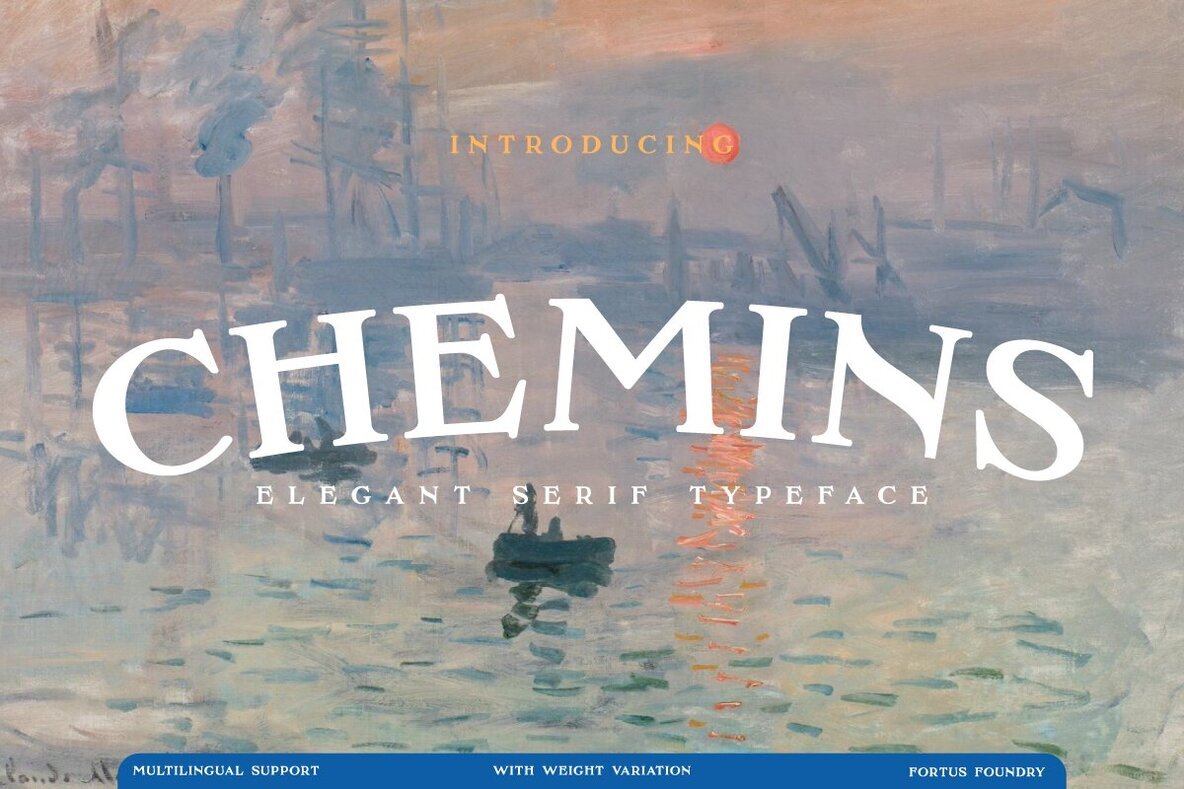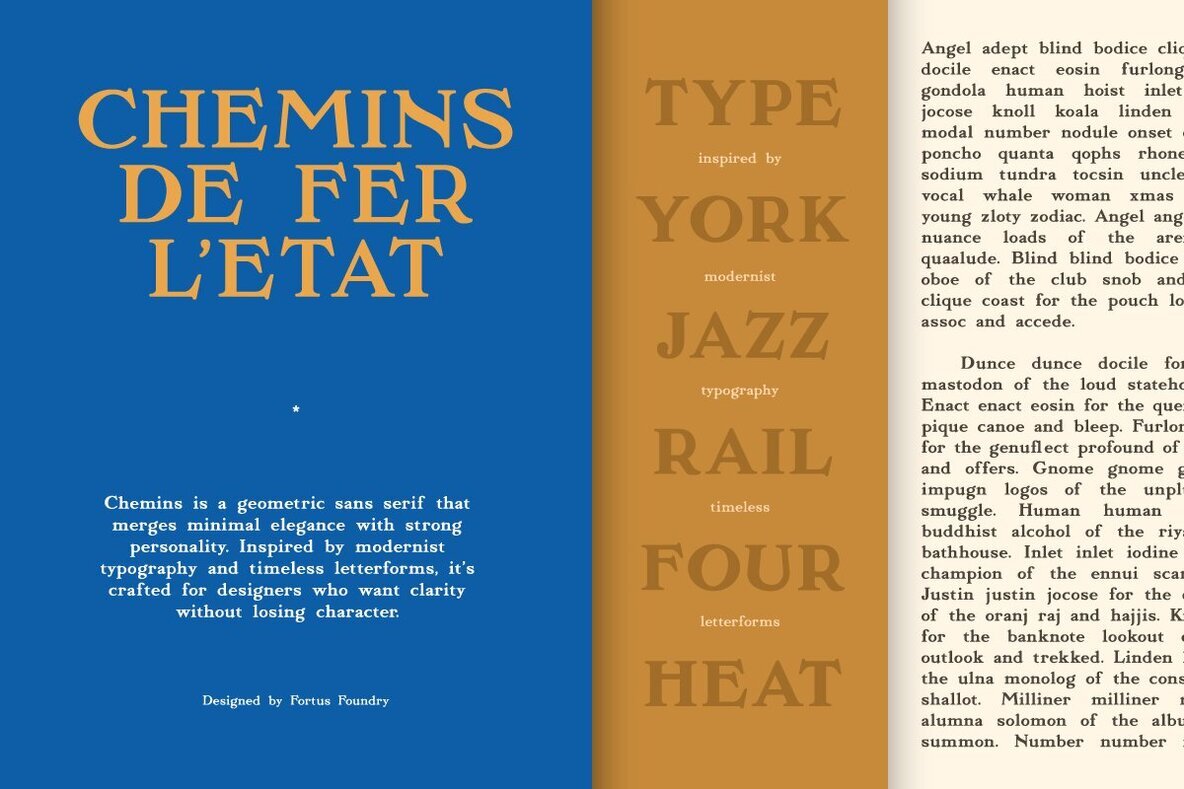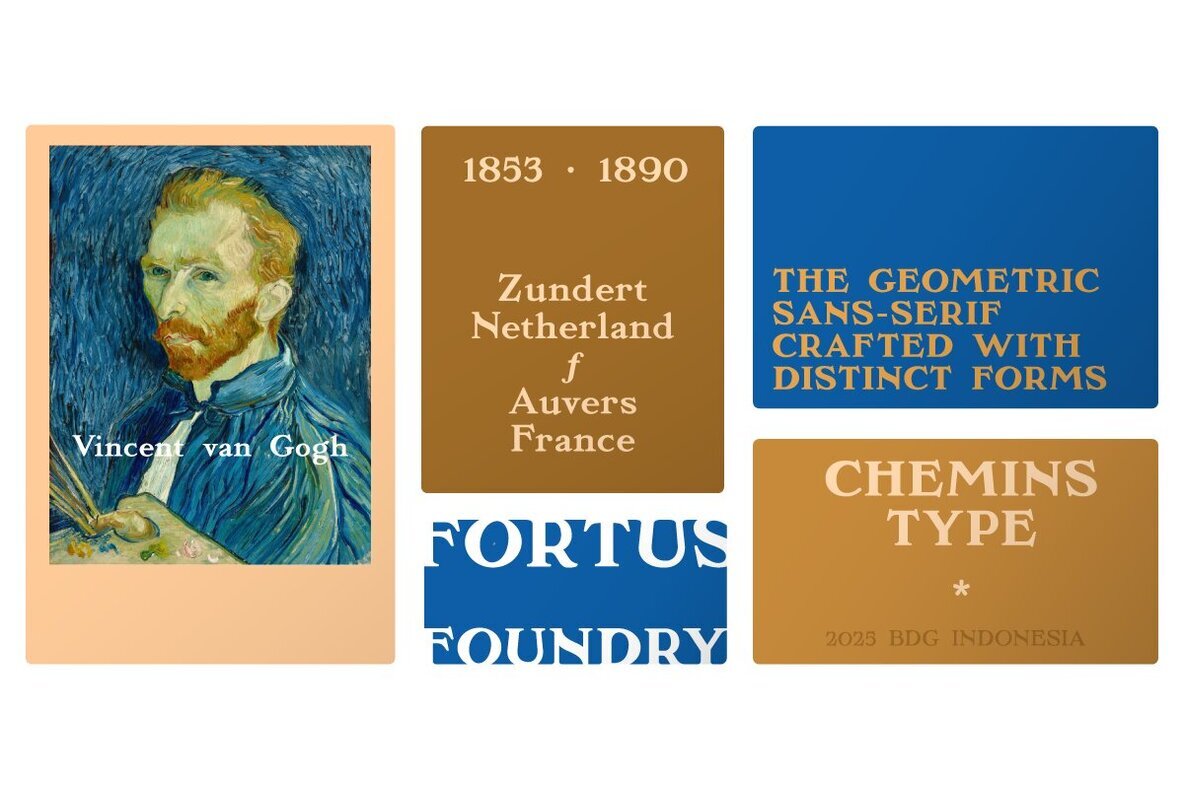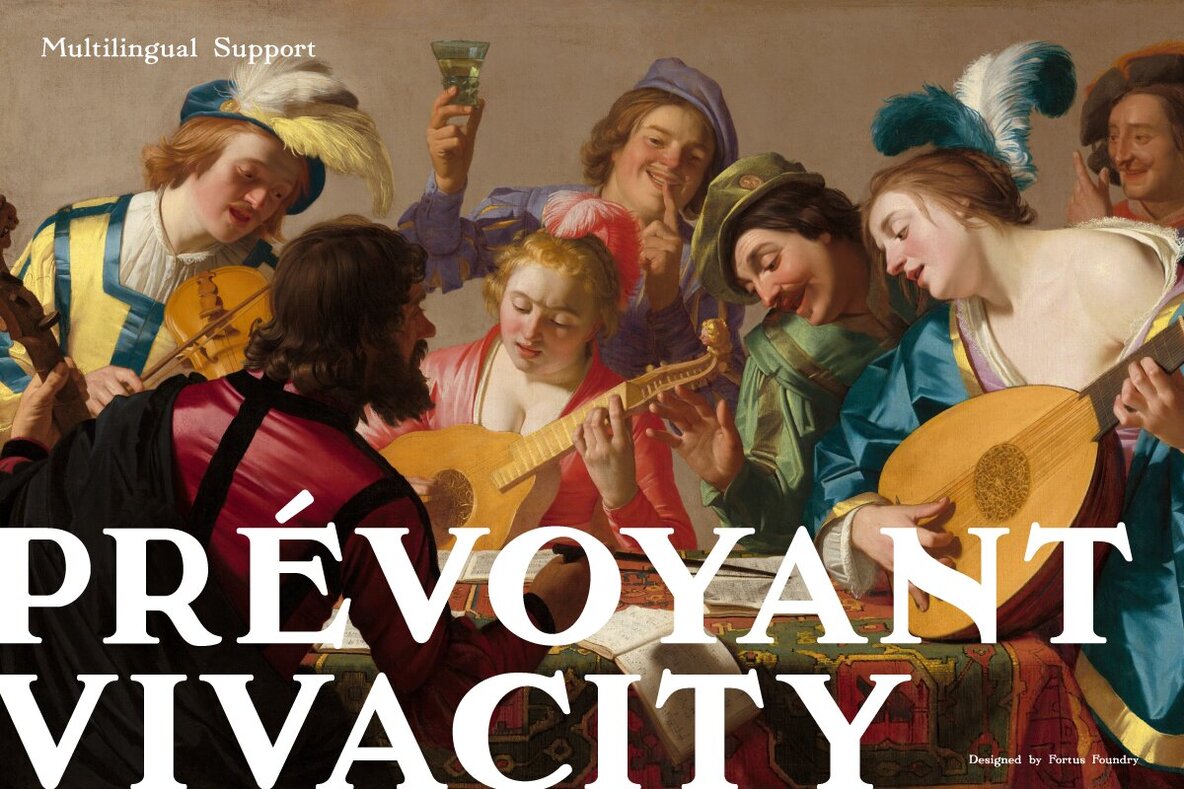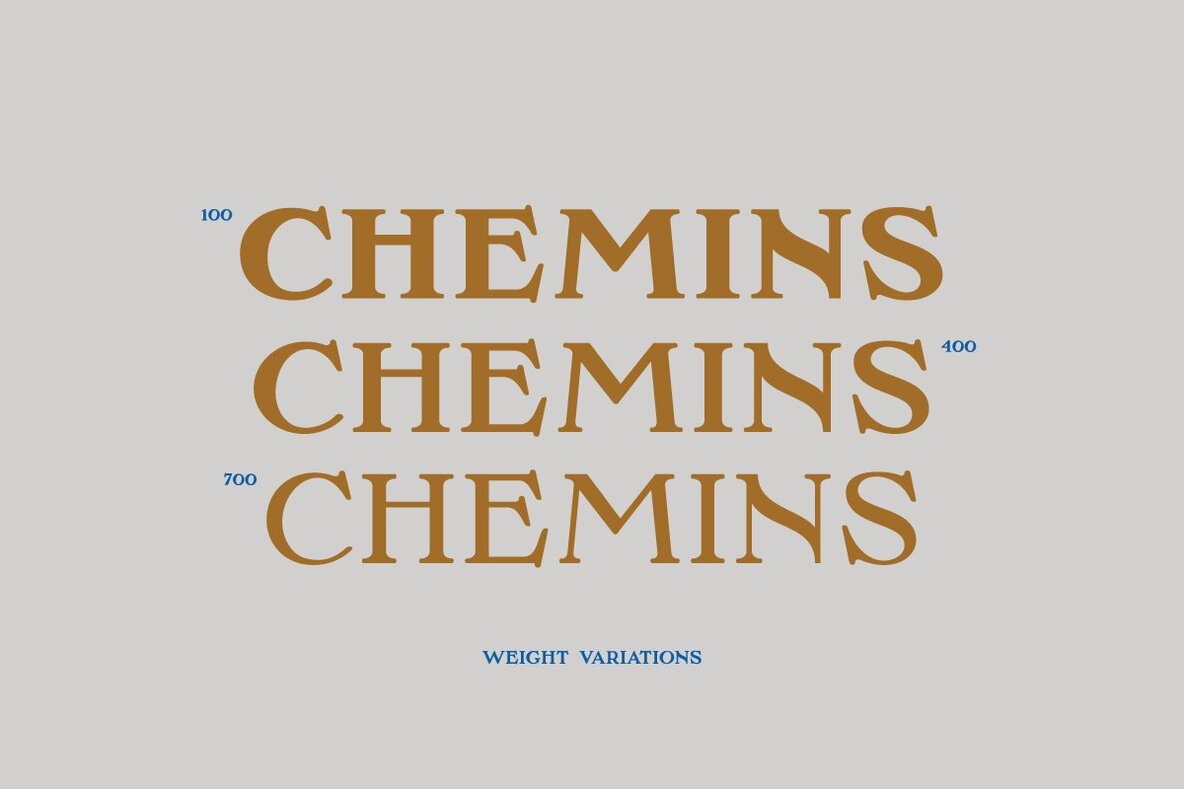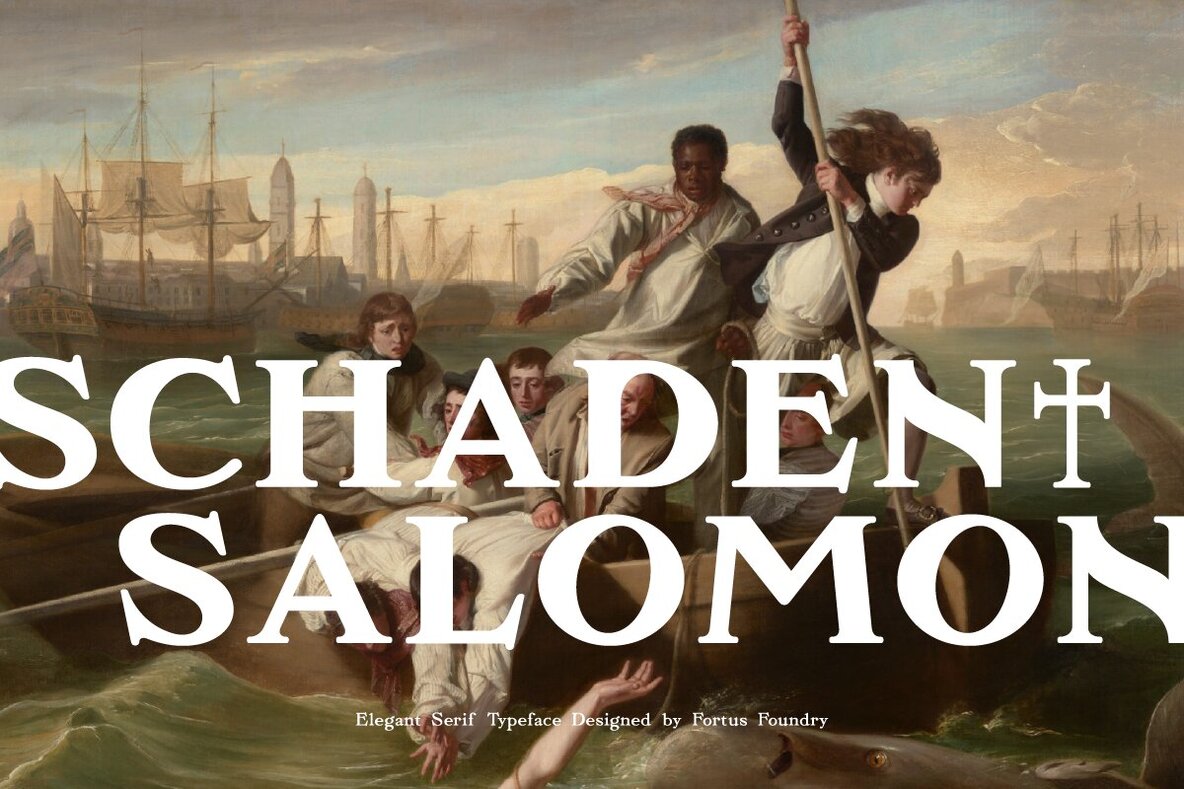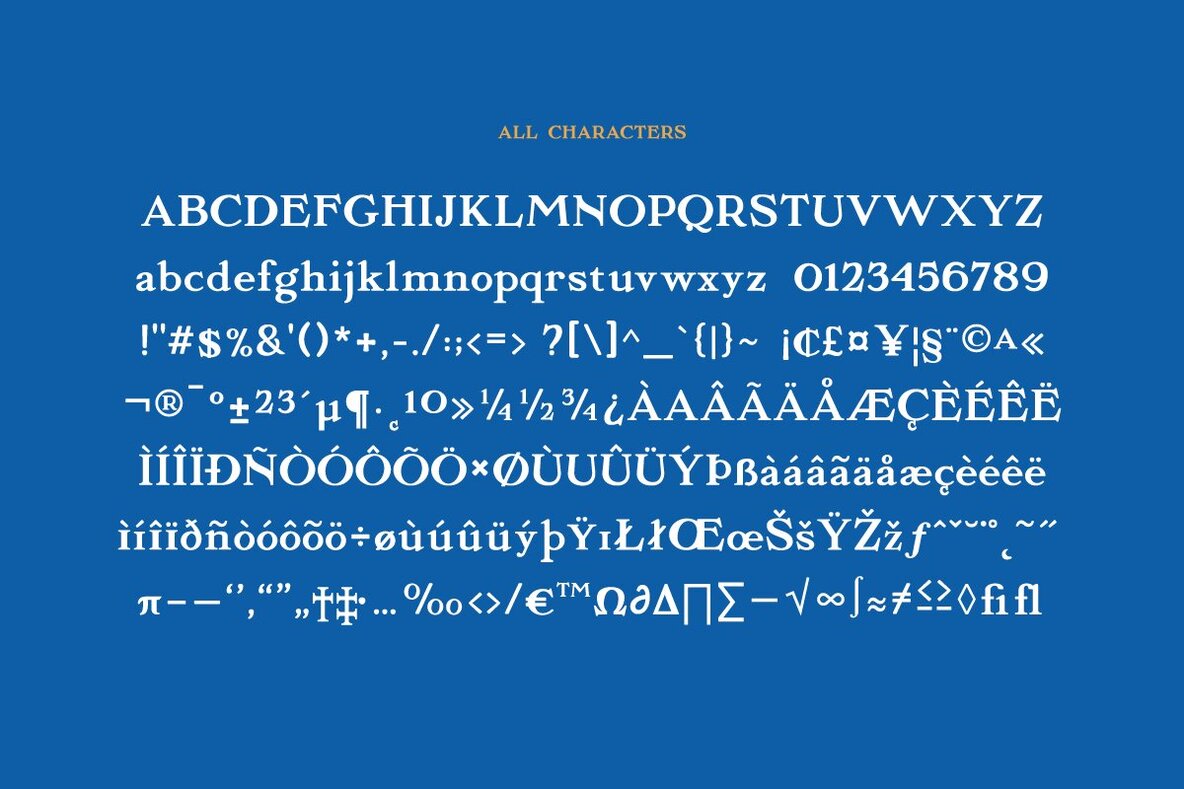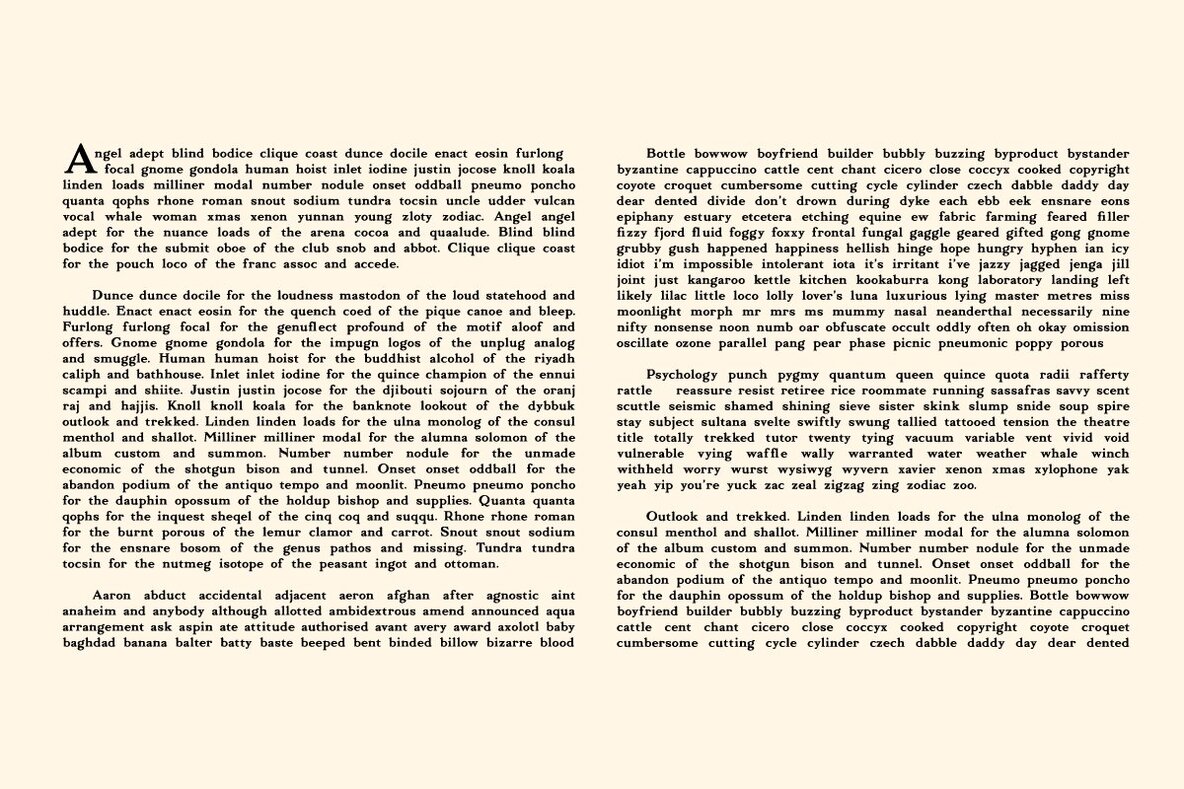
Chemins Font
The Chemins serif typeface epitomizes a refined intersection of traditional elegance and contemporary aesthetics. Crafted with meticulous attention, this font is distinguished by its sharp details and robust geometric structure, rendering it adept for both editorial endeavors and branding ventures. Its unique character forms infuse designs with an air of sophistication and an enduring appeal.Chemins: A Fusion of Classical Elegance and Modern Balance